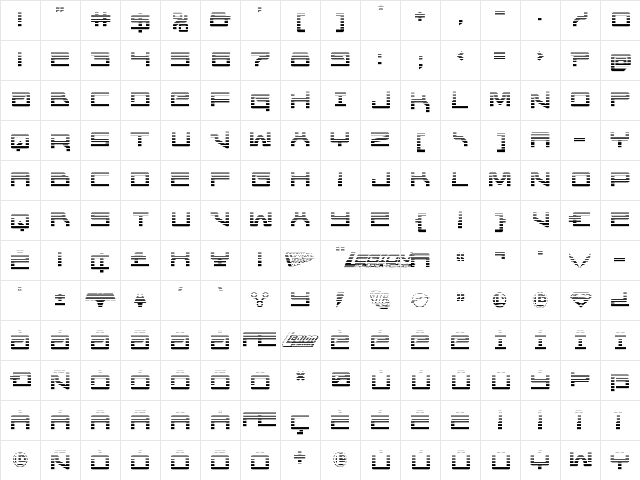
United Planets Gradient Regular
Design Context for United Planets Gradient Typeface
United Planets Gradient is a composed and adaptable typeface that performs quietly and consistently across a wide range of design contexts.
Pro Tip: Use United Planets Gradient in both headline and body roles to test its range before committing to a single application.